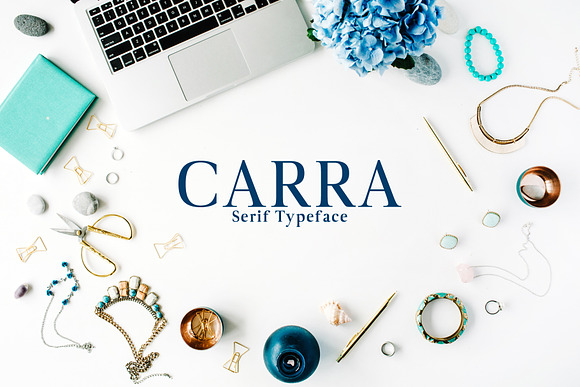
Carra Serif Font Family Pack
This versatile serif typeface pack is perfect for editorial design, literary magazines, academic publications, boutique branding, artisan product packaging, cultural event materials, museum exhibitions, and sophisticated blog layouts. Carra Serif Font Family Pack delivers exceptional performance in applications where intellectual appeal and refined readability are equally important.
What makes Carra Serif Font Family Pack so exciting is its harmonious blend of contemporary functionality and classical charm. The font features thoughtfully designed letterforms with distinctive serifs that enhance text flow while adding subtle character to every word. Each glyph demonstrates careful consideration for both aesthetic appeal and practical usability, with optimized spacing and proportions that ensure comfortable reading across various media. The pack's adaptive nature allows it to transition effortlessly between traditional and modern contexts, making it an essential tool for designers who appreciate nuanced typography that speaks to diverse audiences.
The Carra Serif Font Family Pack includes multiple weights and styles: Light, Regular, Medium, Bold, and their corresponding italic variations. This comprehensive collection provides designers with complete typographic flexibility to create sophisticated layouts and establish clear information hierarchies. Each weight maintains the family's core elegance while offering unique personality traits for different applications and design requirements.
This distinguished serif collection embodies the perfect synthesis of traditional typography values and contemporary design sensibilities for discerning creative professionals.